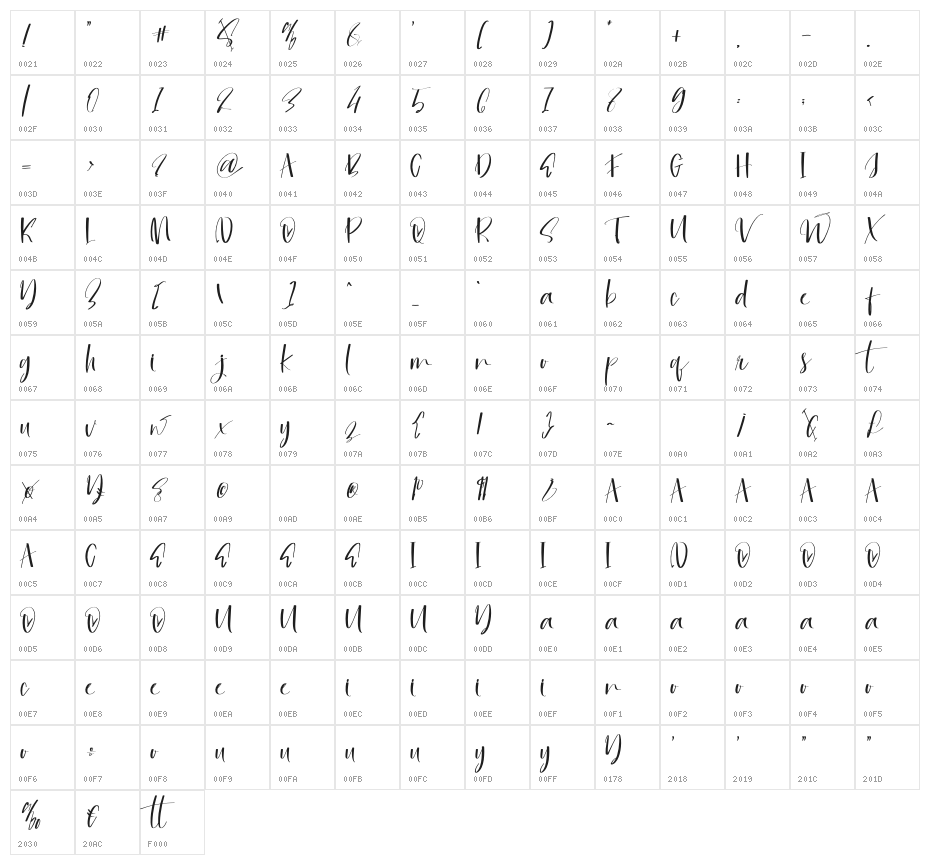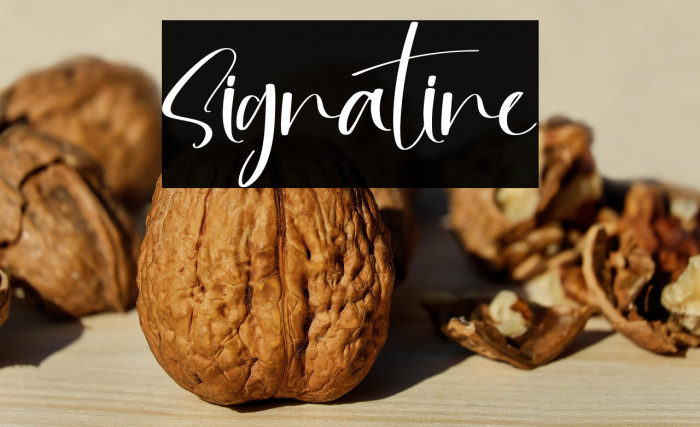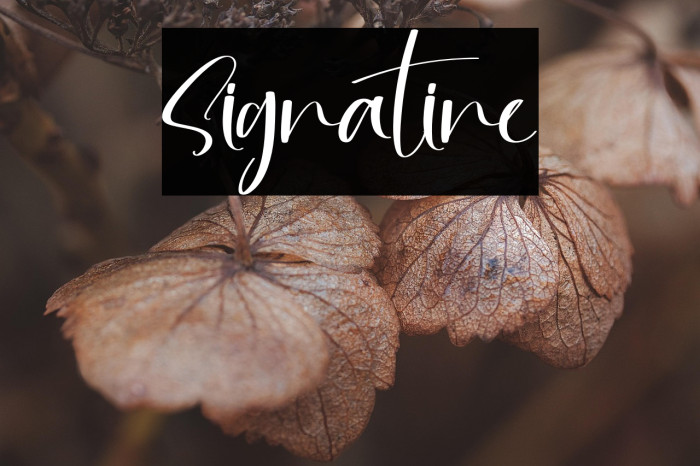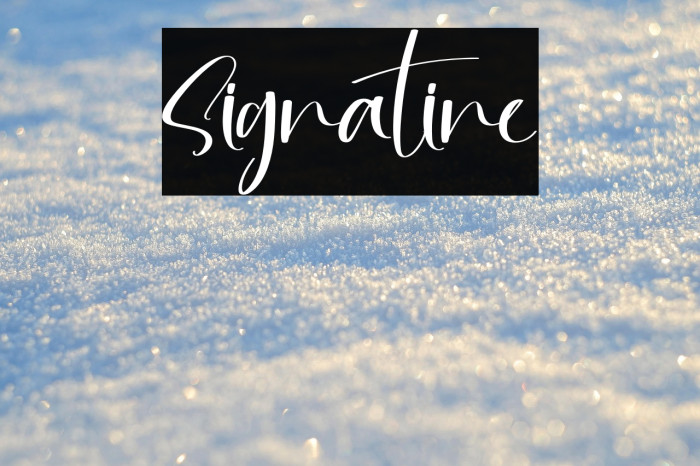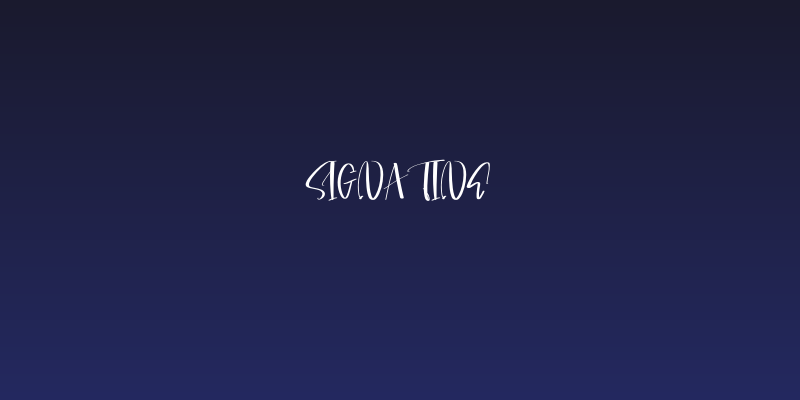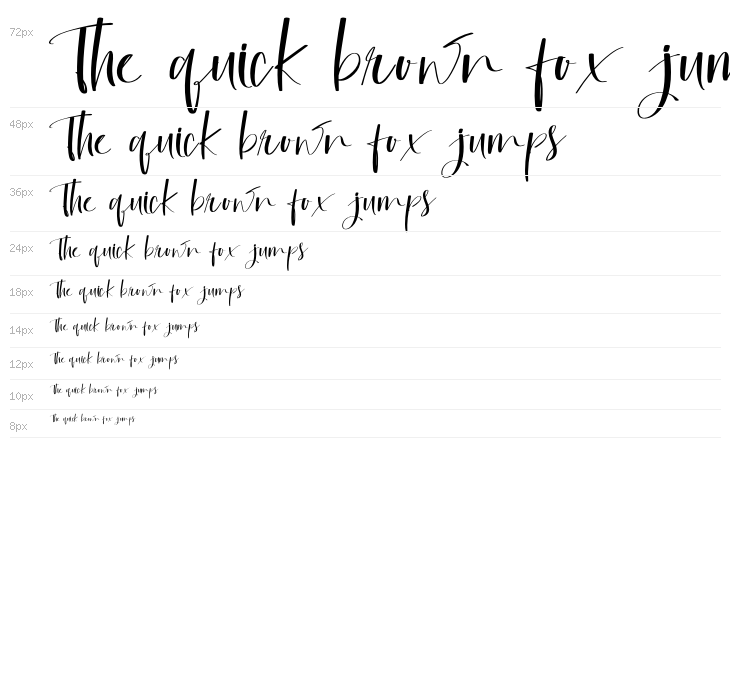
Signatine Font
Signatine Description
A flowing, expressive handwritten script with varied stroke thickness, featuring dramatic ascenders and descenders, and a casual, signature-like appearance. The characters are loosely connected, with some exaggerated flourishes and a dynamic, personal feel.
| Overall Style | Decorative, Modern, Casual |
| Use Case | Logos, Invitations, Headlines, Personal branding |
| Proposed Projects | Personal branding, invitations, greeting cards, logos, social media graphics, packaging. |